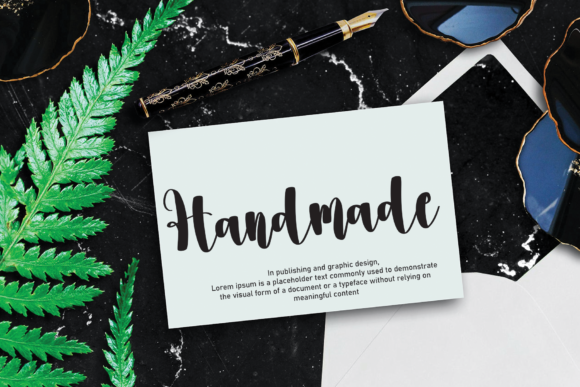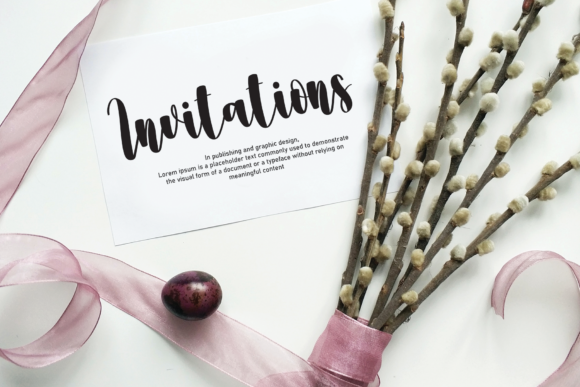
December Font
db-ku.com - Script & Handwritten -- December is a script handwriting font, and it looks beautiful on wedding invitations, greeting cards, logos, posters, labels, t-shirt designs, logos, business cards, and more!